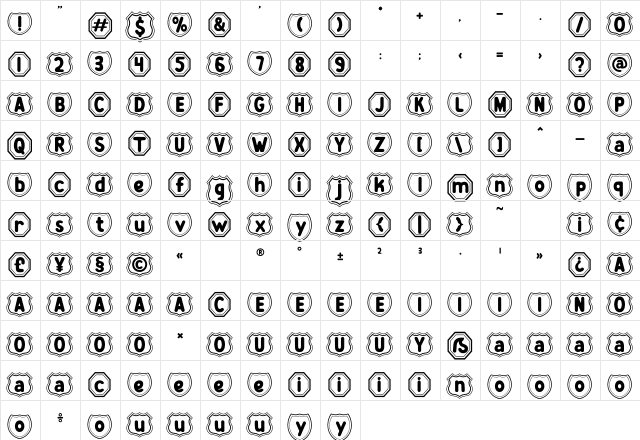
Zany Route Badge Free Font
Zany Route Badge
Style: Badge
Foundry: Putracetol Studio, Karanganyar.
Designer: Putra Novembria Candra Kusuma
Zany Route Family
Zany Route Badge
Complete Zany Route Badge glyph index. Displaying only characters natively supported by Zany Route Badge font.
Design Context for Zany Route
Zany Route is a composed and adaptable typeface that performs quietly and consistently across a wide range of design contexts.